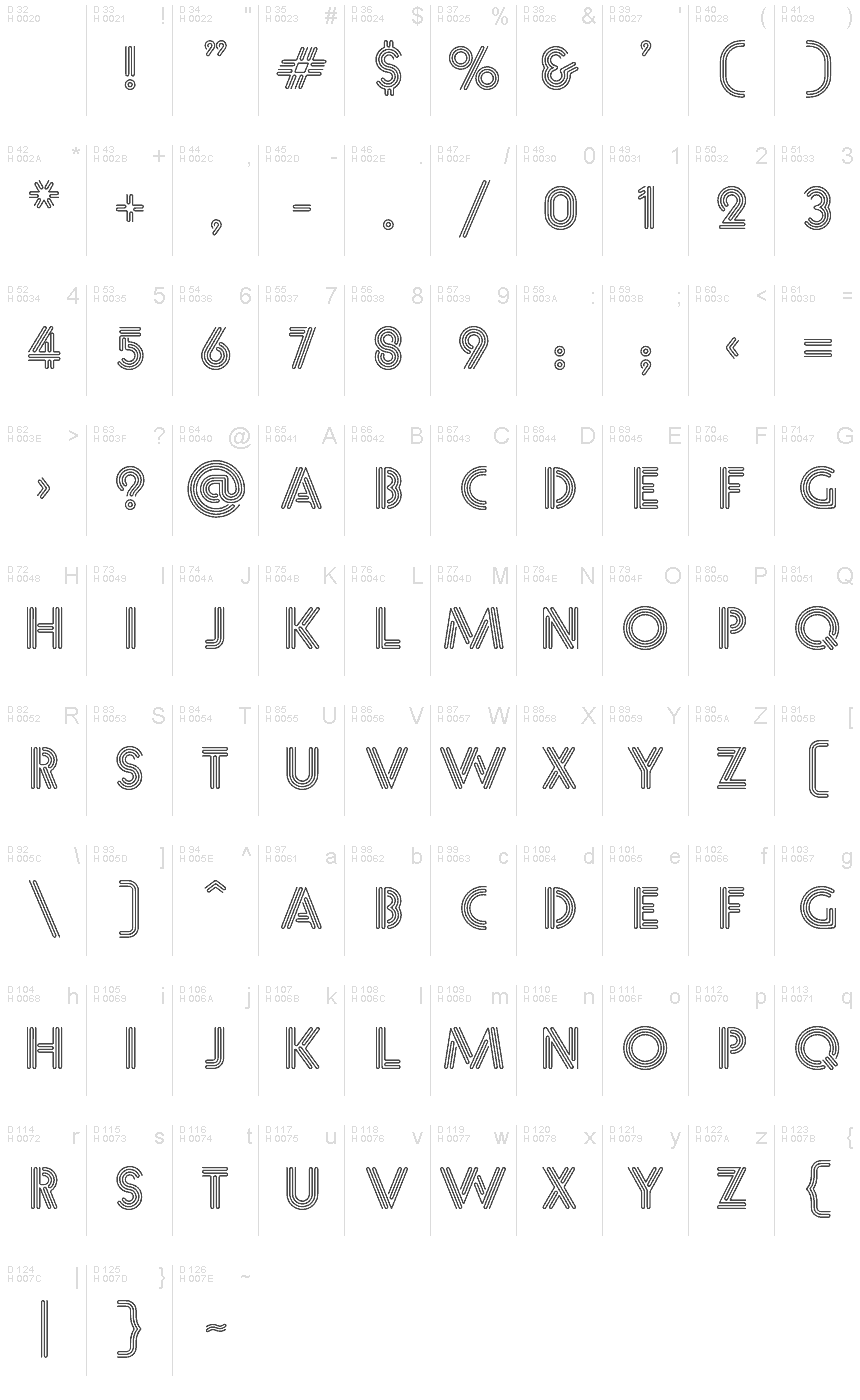
NeoNeon Light
NeoNeon Light font by Justin Hoggard is a groovy bold display typeface with geometric outlines. This futuristic font creates an optical illusion effect when blended onto different backgrounds and mixed with image visuals for your artwork.